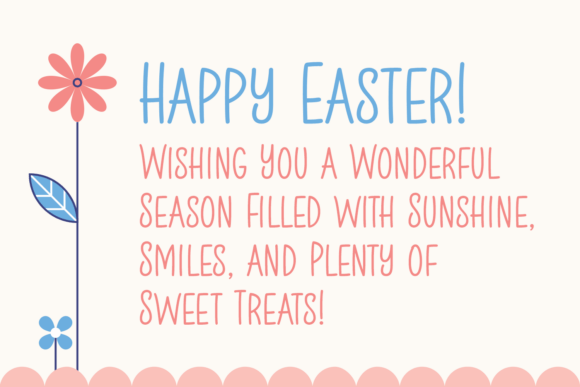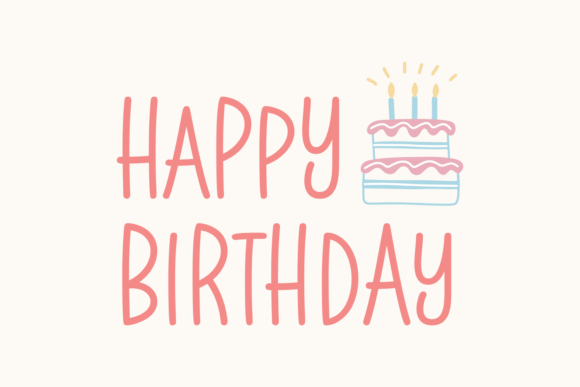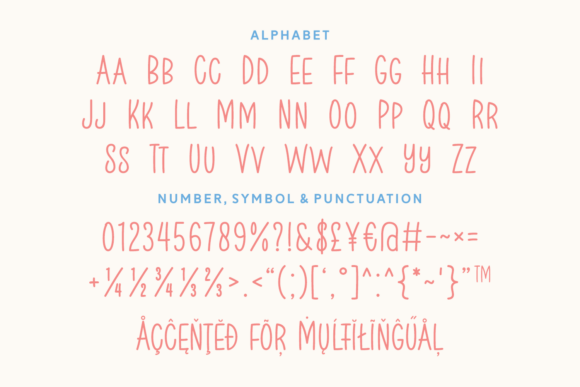
Welcome to the Joyful World of Easter Member Font
As the snow melts and flowers begin to bloom, the spirit of spring is in the air. What better way to celebrate than with a font that embodies the joy and playfulness of the season? Introducing the Easter Member font, a delightful and slender handwritten display typeface that’s sure to bring a smile to your face. With its tall, thin strokes and friendly, hand-drawn wiggle, this font is the perfect addition to any spring-themed project.
Characteristics of the Easter Member Font
The Easter Member font is characterized by its lighthearted and airy feel, making it an ideal choice for a variety of applications. Some of its key features include:
- Tall, thin strokes: Giving the font a sense of elegance and sophistication.
- Hand-drawn wiggle: Adding a playful and whimsical touch to each character.
- Clean and legible: Making it easy to read and understand, even at smaller sizes.
- Artisanal feel: Providing a distinctly “made-with-love” personality that’s perfect for crafty projects.
Perfect for Seasonal Projects
The Easter Member font is specifically designed with spring and Easter-themed projects in mind. Its unique blend of elegance and playfulness makes it an ideal choice for:
- Easter egg hunt flyers: Create eye-catching and engaging flyers that will delight kids and adults alike.
- Spring-themed classroom materials: Add a touch of whimsy to your educational resources and make learning fun.
- Delicate product packaging: Elevate your product packaging with a font that’s both elegant and playful.
A Dream for Minimalist Designers
The Easter Member font is a versatile and adaptable typeface that’s perfect for minimalist designers. Its clean and airy feel makes it easy to pair with a variety of design elements, including:
- Soft pastel color palettes: Think baby blues, mint greens, and dusty pinks – perfect for creating a soft and soothing visual identity.
- Simple illustrations: Add a touch of whimsy to your designs with simple illustrations that complement the font’s playful feel.
- White space: Use the Easter Member font to create a sense of elegance and sophistication in your designs, even with plenty of white space.
The Easter Member font is a versatile typeface that can be used in a variety of creative projects, including:
- Boutique flower shop branding: Create a beautiful and elegant brand identity for your flower shop.
- Personalized greeting cards: Add a touch of whimsy to your greeting cards and make them truly special.
- Social media graphics: Use the Easter Member font to create eye-catching and engaging social media graphics.
The Easter Member font is a delightful and versatile typeface that’s perfect for spring-themed projects. With its lighthearted and airy feel, it’s an ideal choice for designers and crafters looking to add a touch of whimsy to their designs. Whether you’re creating Easter egg hunt flyers, spring-themed classroom materials, or delicate product packaging, the Easter Member font is sure to bring a smile to your face. So why not give it a try and see the joy it can bring to your designs?